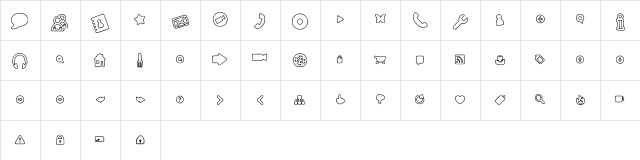
Web Tools Outline Regular
Design Context for Web Tools Outline Typeface
Web Tools Outline is built around its visual character rather than neutral utility — its distinctive forms are designed to make an impression at display sizes.
Font Pairing: Pair with a clean neutral sans-serif for body copy to let Web Tools Outline's character lead without overwhelming the composition.
Pro Tip: Treat Web Tools Outline as the centrepiece of your typographic hierarchy. One strong heading set in a decorative face can carry an entire layout.